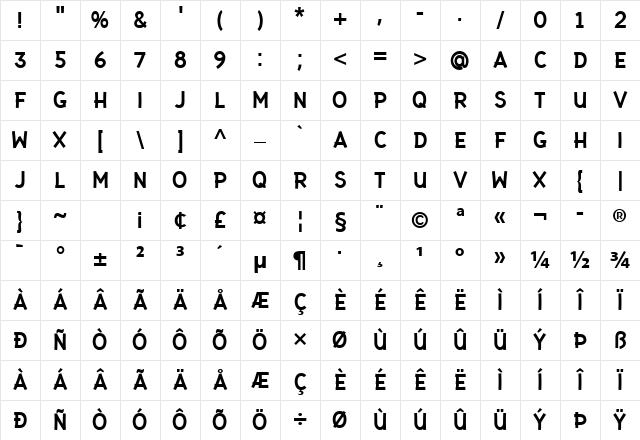
Gaffer Type Display
Style: Display
Foundry: Archetype
Design Context for Gaffer Type
Gaffer Type is built around its visual character rather than neutral utility - its distinctive forms are designed to make an impression at display sizes.